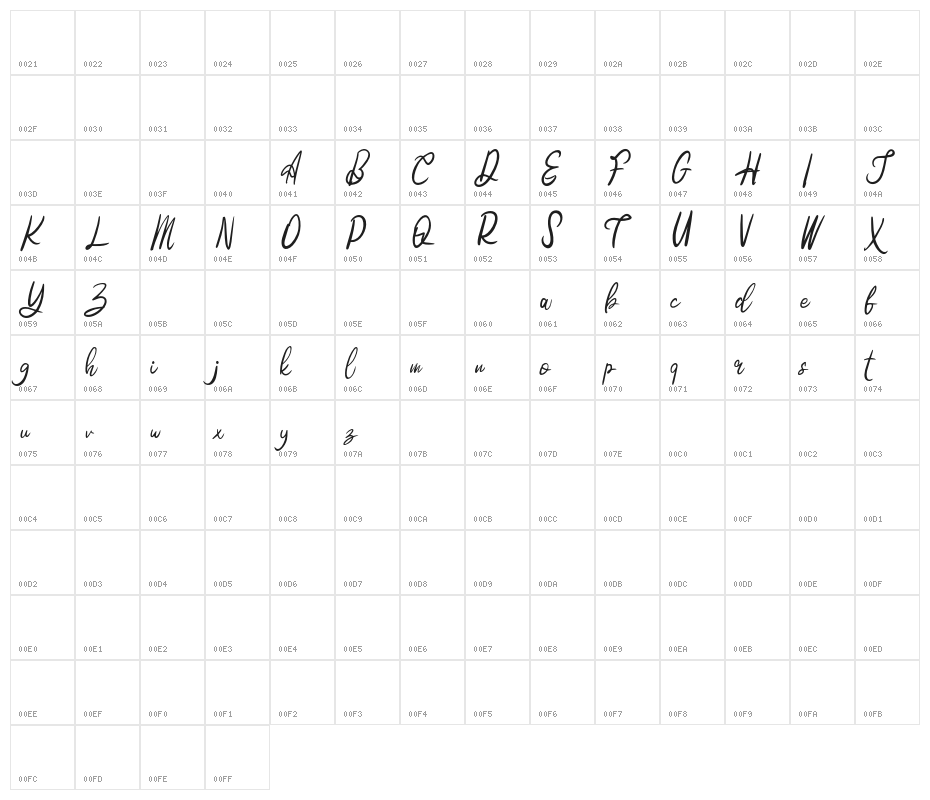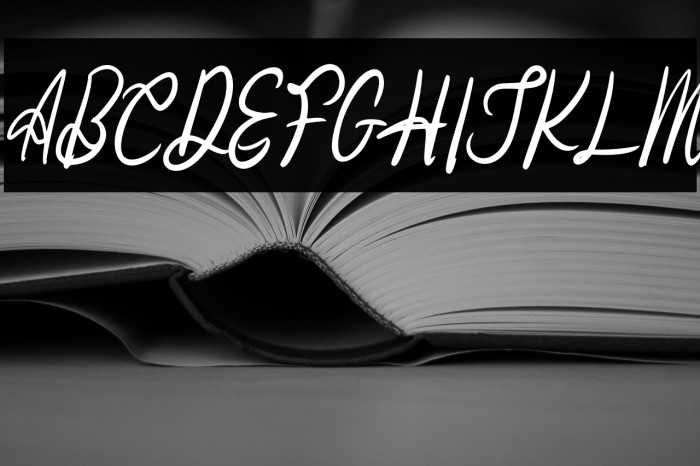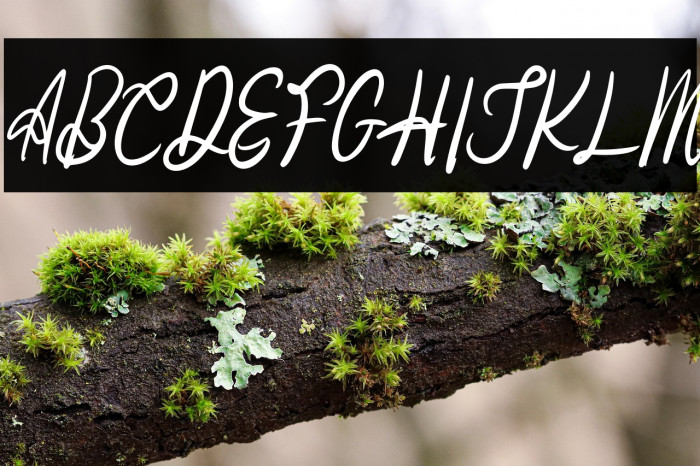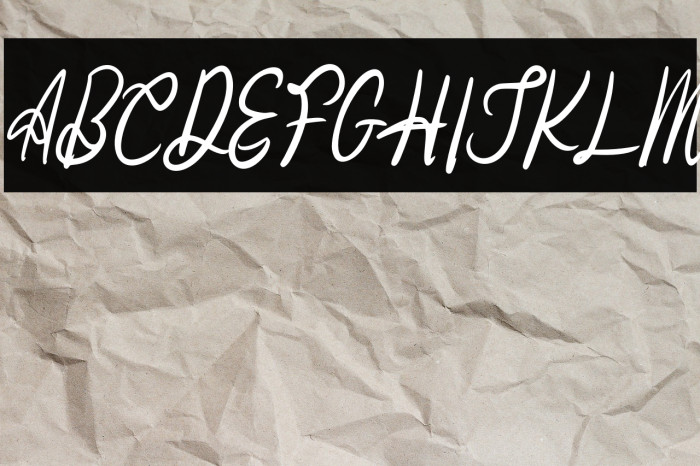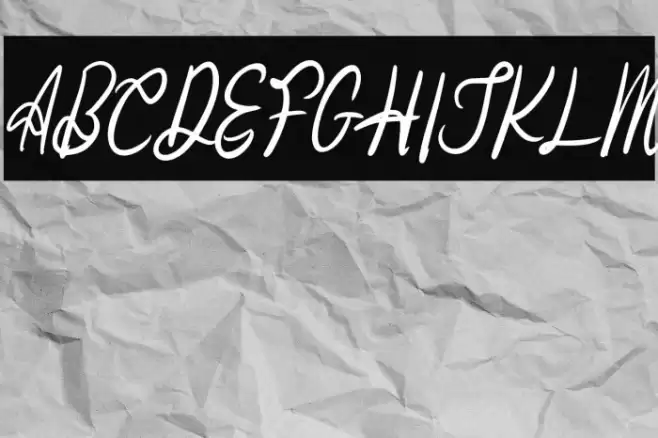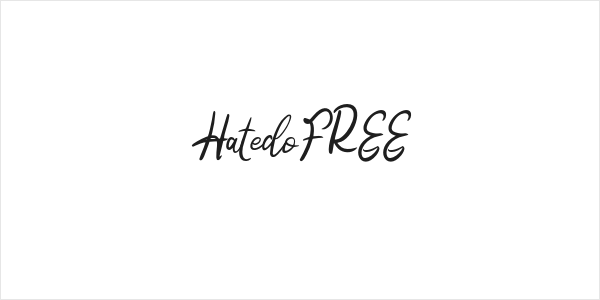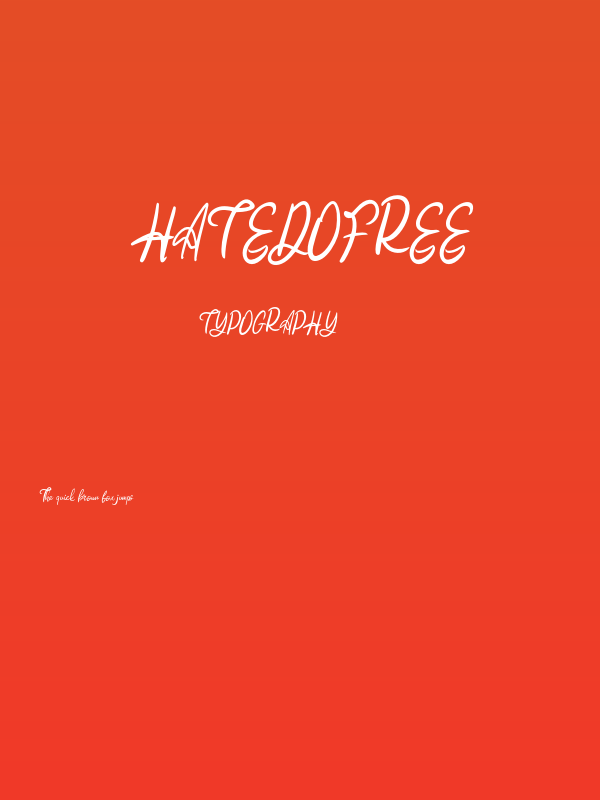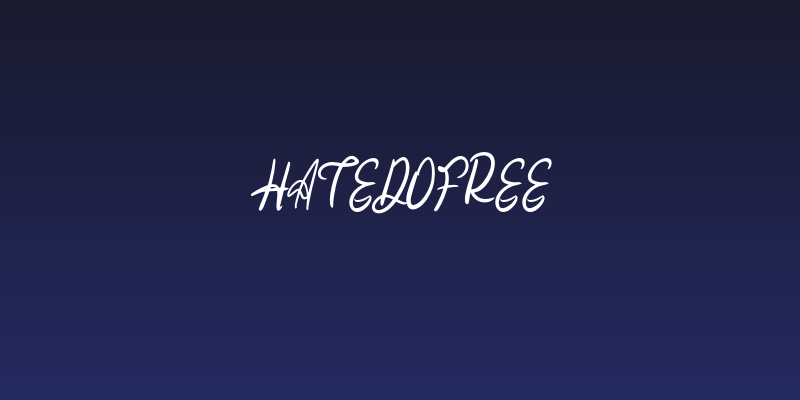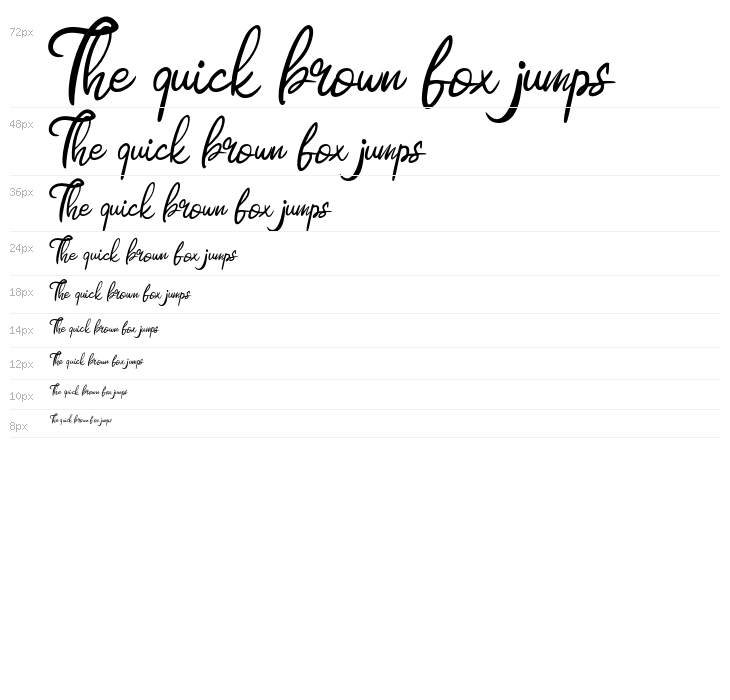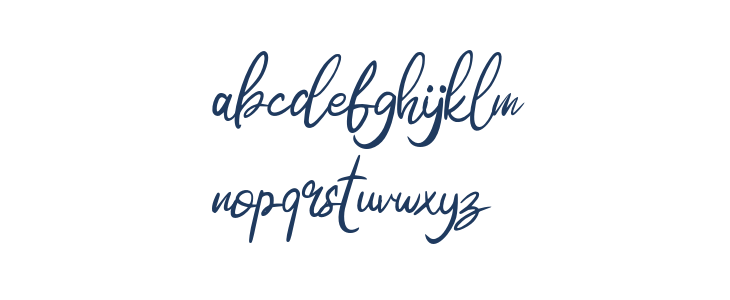
HatedoFREE Font
HatedoFREE Description
This font exudes a lively and expressive character with its handwritten style. The letters are fluid and dynamic, featuring a mix of thick and thin strokes that give it a personal and artistic touch. The uppercase letters are bold and slightly slanted, adding a sense of movement and energy. The lowercase letters maintain a consistent flow, with some characters extending below the baseline, enhancing its casual and informal appearance. The numerals and special characters are crafted with the same playful spirit, making them blend seamlessly with the alphabet. This font is perfect for projects that require a personal and creative flair.
| Proposed Projects | Ideal for greeting cards, invitations, personal branding, and creative projects that require a touch of personality. |